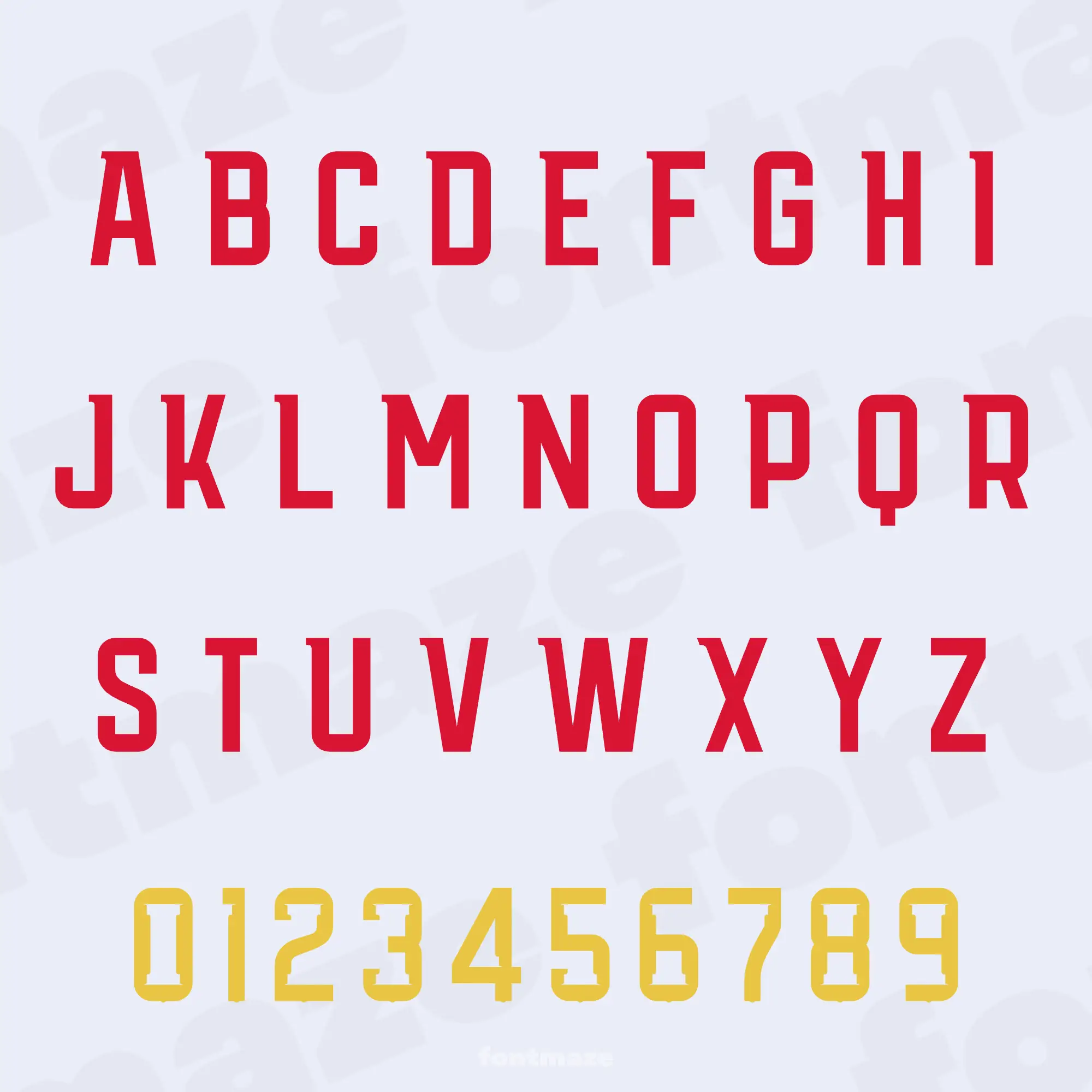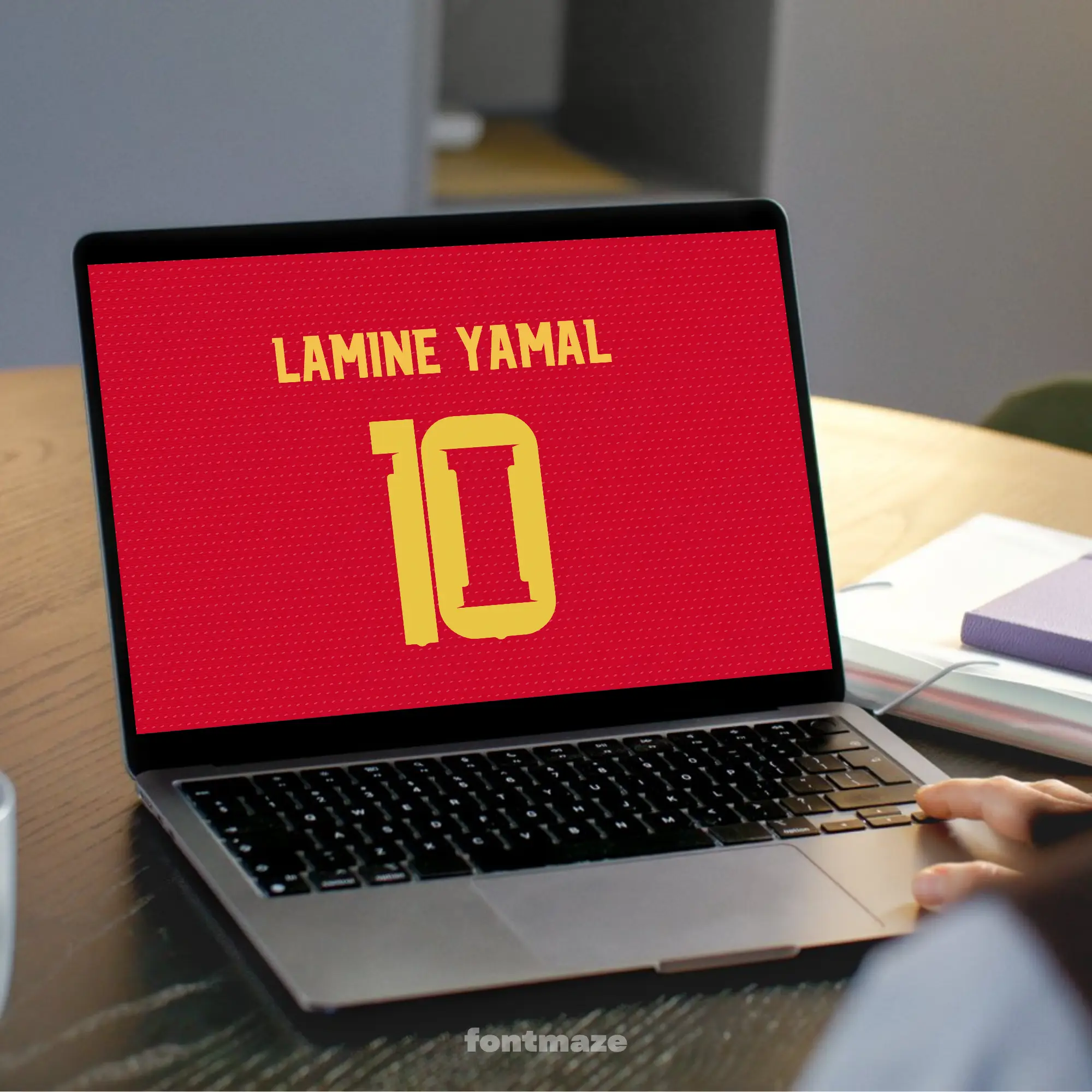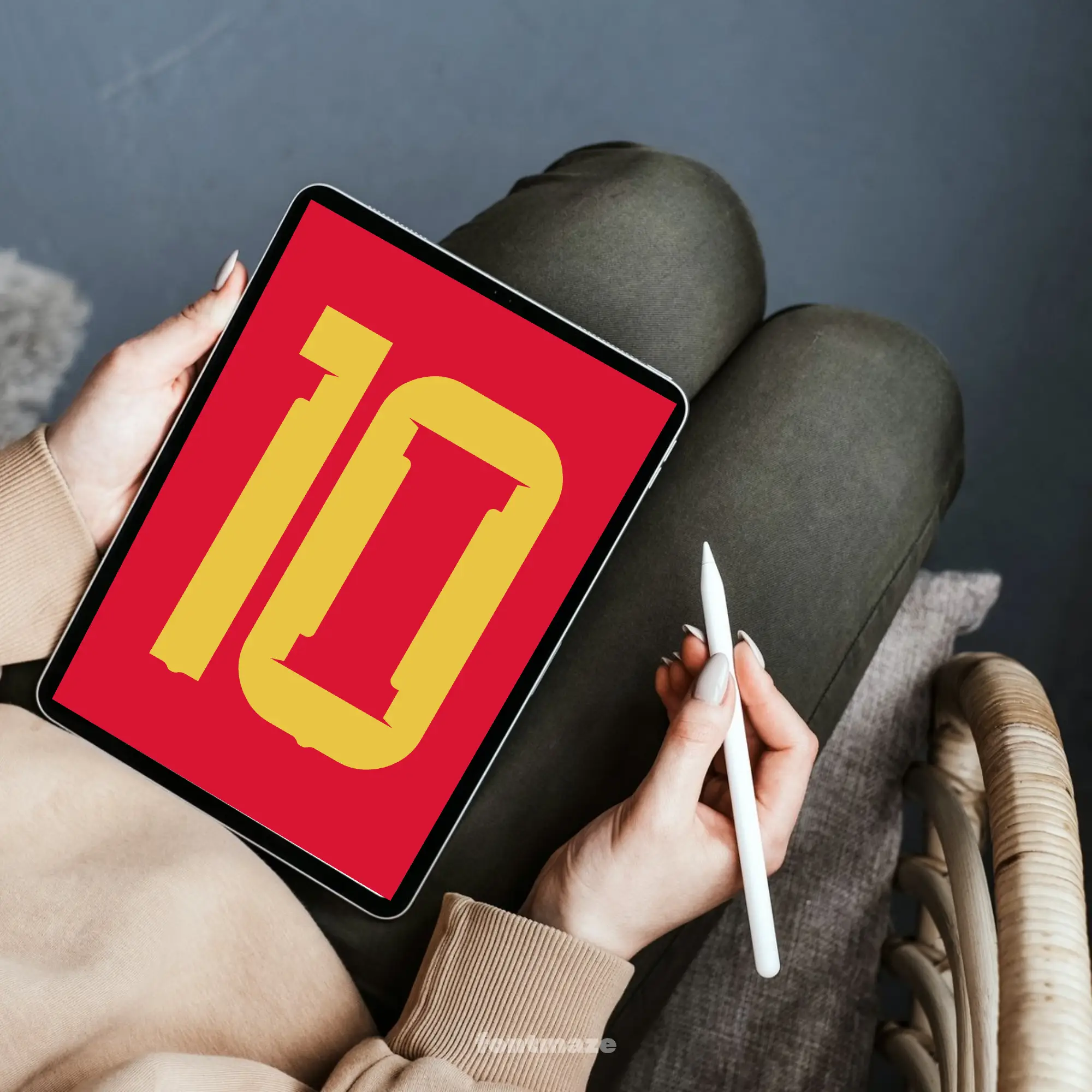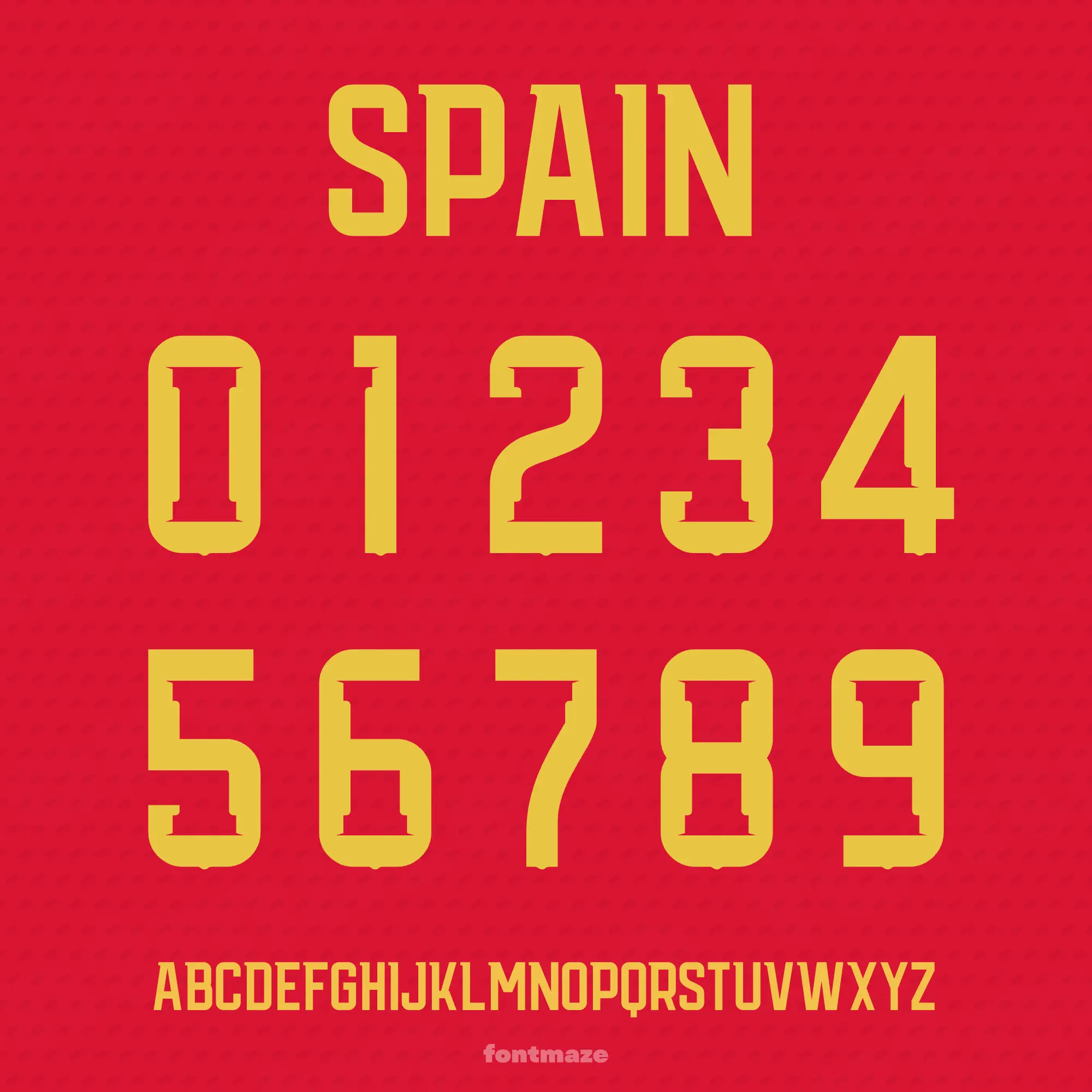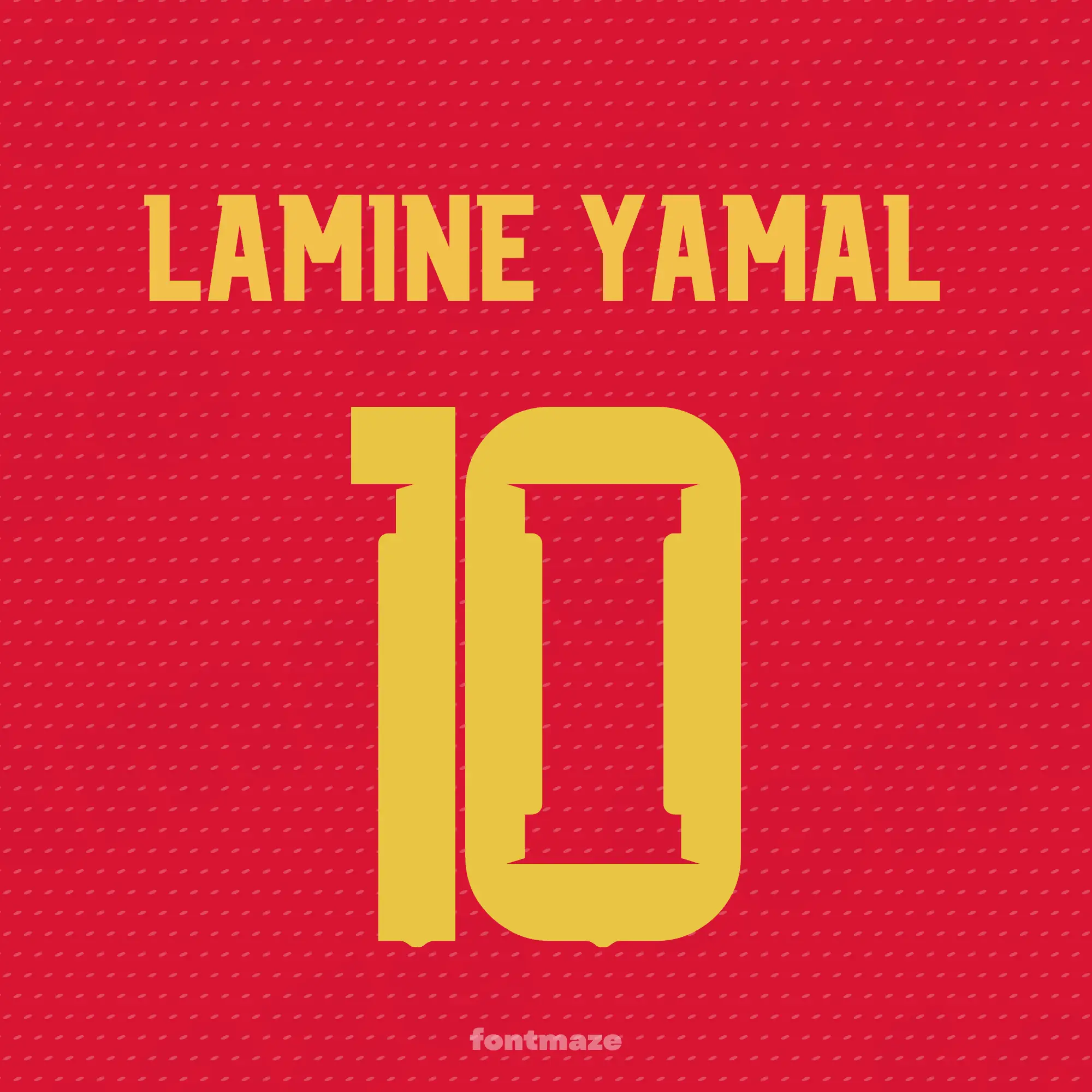
Create Custom Jerseys with the Spain Football font
Bring the look of modern Spanish football to your next shirt or sports project. This Spain Football Font works well for custom jerseys, player-name lettering, football numbers, and team-inspired graphics.
Create a World Cup 2026 fan shirt, match-day poster, or soccer jersey design with clear, coordinated lettering. The style also suits Iniesta-inspired tribute projects without implying any official affiliation.
What You Can Create With This Font
Preview showing all characters of the Spain Football Font font designed by FontMaze.
Spain Football Font – World Cup 2026